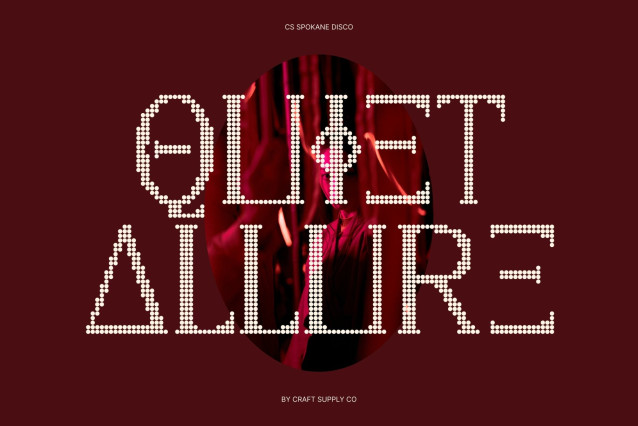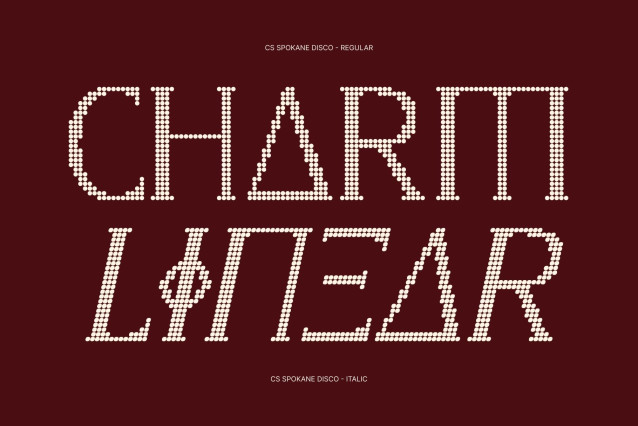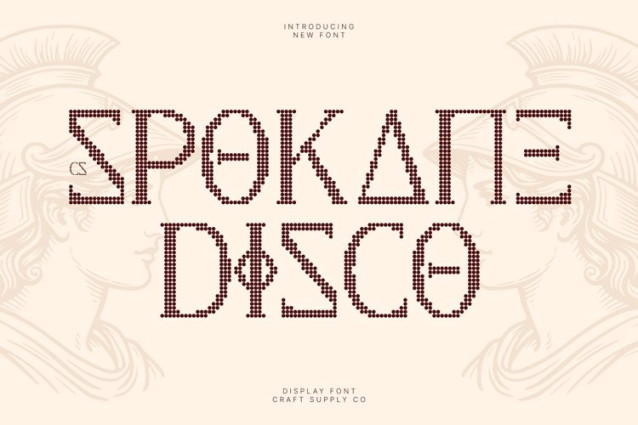
CS Spokane Disco Font
CS Spokane Disco – Timeless Serif with Greek-Inspired Sparkle
Classical Elegance Reimagined in Disco Dots
This font transforms a refined Greek-inspired serif into a radiant dotted display font. The sculpted serifs and harmonious proportions remain rooted in classical beauty, while the disco dot texture introduces a festive glow that feels vibrant, celebratory, and modern.
Ancient Influence with Glamorous Energy
Inspired by the elegance of ancient inscriptions and classical architecture, the letterforms carry a sense of balance, intellect, and sophistication. The dotted styling adds a playful shimmer, turning timeless tradition into typography that feels lively and eye-catching.